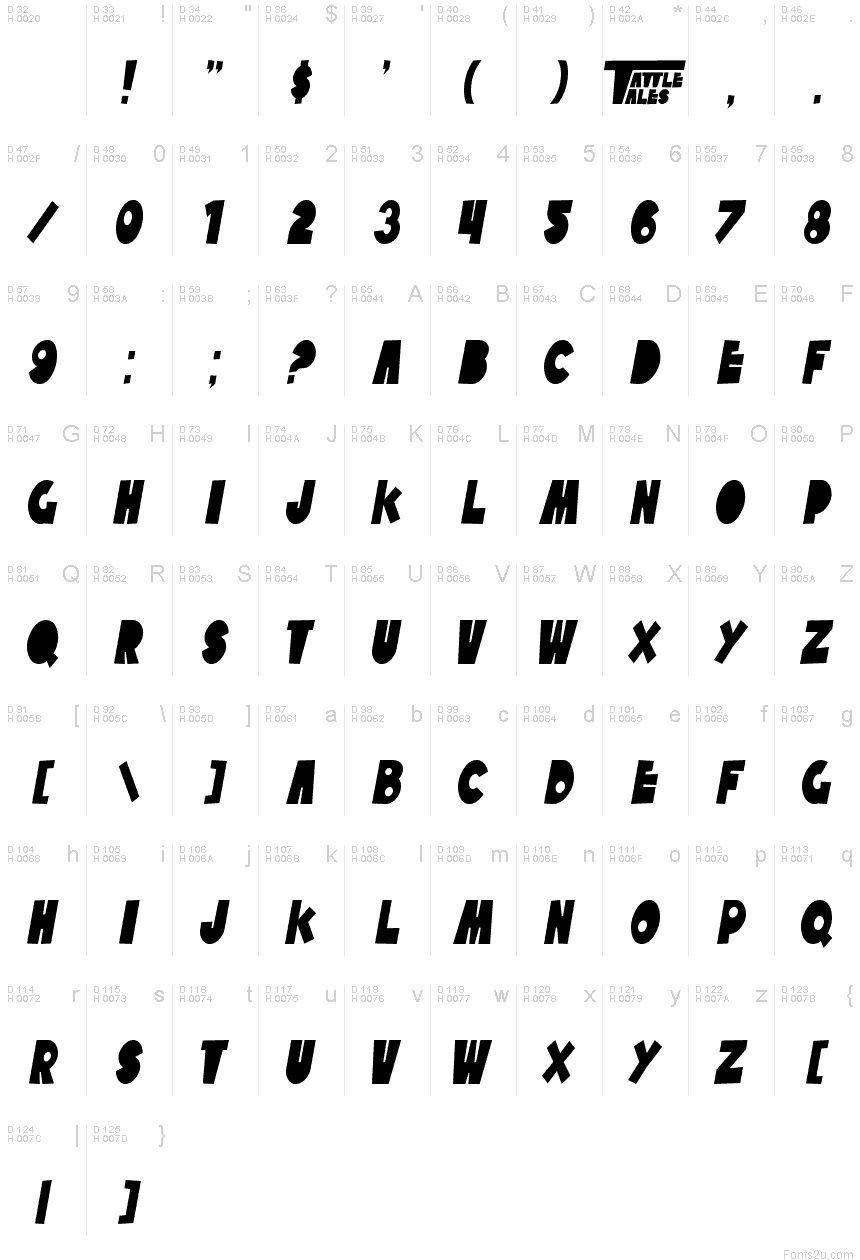
SF Tattle Tales Condensed Italic by ShyWedge is a free distorted display font with hefty, compressed letterforms and a rough-cut cartoon silhouette. The letters lean hard to the right, with uneven tops and notches.
As oversized title lettering, it can make comedy posters and animated graphics feel loud and mischievous. The dense shapes also suit snack packaging and youth merchandise built around exaggerated figures. These uses share a taste for humor, and the font's off-kilter construction lets the words join in.